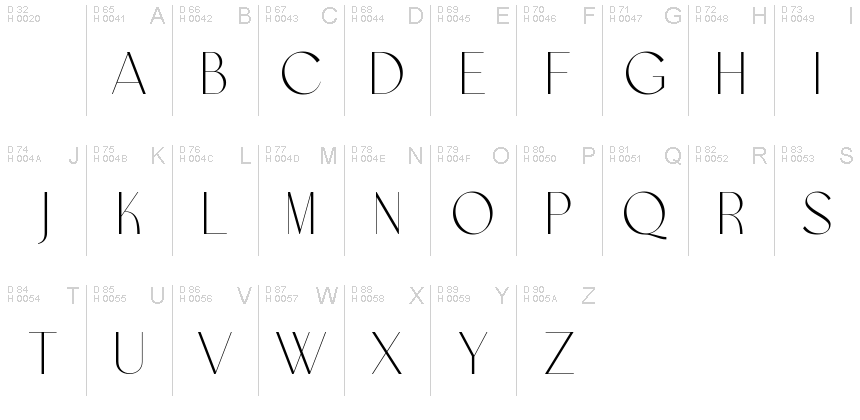
vapour DEMO Regular
Vapour font by Pentagonistudio is a striking sans serif typeface that boasts a unique light weight. Its refined lines and elegant form make it perfect for modern design projects. The font's aesthetic appeal lies in its sleek, airy presence, adding sophistication to any text it transforms. Ideal for branding, editorial design, and digital interfaces, Vapour brings a touch of class to logos and headlines alike.